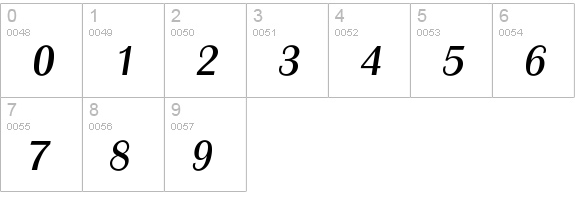
Grenoble-RegularIta Font Details
Grenoble-RegularIta is a versatile and elegant font that exudes sophistication and modernity. With its sleek lines and balanced proportions, this typeface is perfect for a wide range of design projects, from branding to editorial layouts. Its italic style adds a touch of flair and personality, making it stand out from other fonts. What sets Grenoble-RegularIta apart is that it is not only stylish and professional but also free to use. This means that you can elevate your projects without breaking the bank. You can download this font for free at FontsMarket.com, where you'll find a vast collection of high-quality fonts to choose from. Whether you're designing a logo, creating a poster, or working on a website, Grenoble-RegularIta is a versatile and reliable choice that will help you achieve a polished and sophisticated look. Download it today and see how it can enhance your designs!